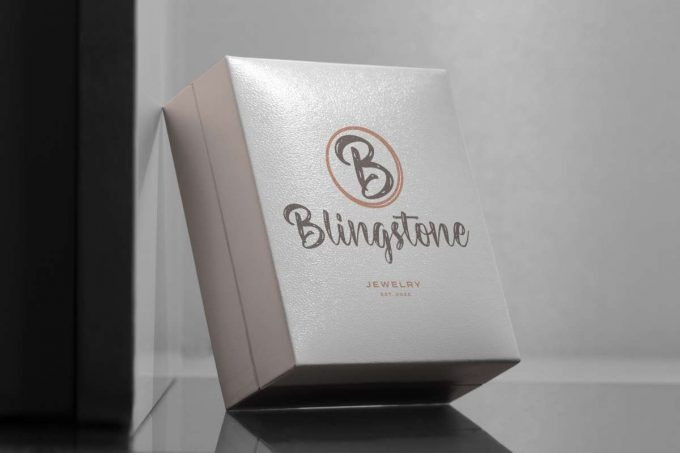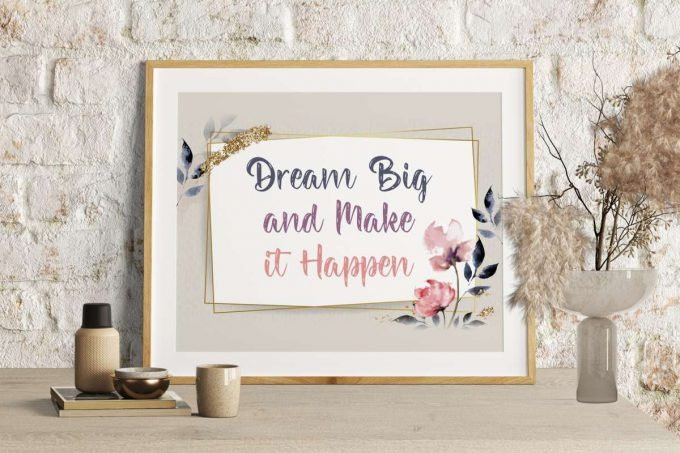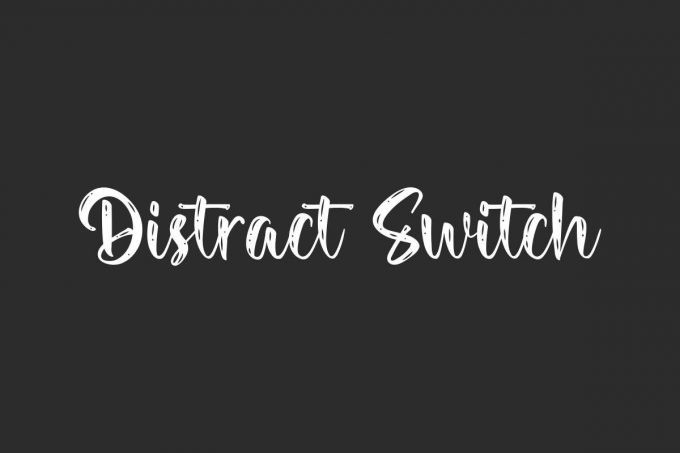
Distract Switch Font
Distract Switch Script Font is a textured brush script font designed by VinType. This font has a unique rough look that will give a new charm to any design you create. Carefully designed to make your designs not boring at all. Use this font for your perfect projects, such as box jewelry, magazine catalog, packaging design, quote art, screen printing, signage, stationery, and more!
Distract Switch Font includes full set of Uppercase and Lowercase Basic Characters, Numerals and Punctuation. This beautiful font will suit many industries, such as boutique, cosmetic, fashion, furniture, jewelry, printing, publishing, restaurant, and more!